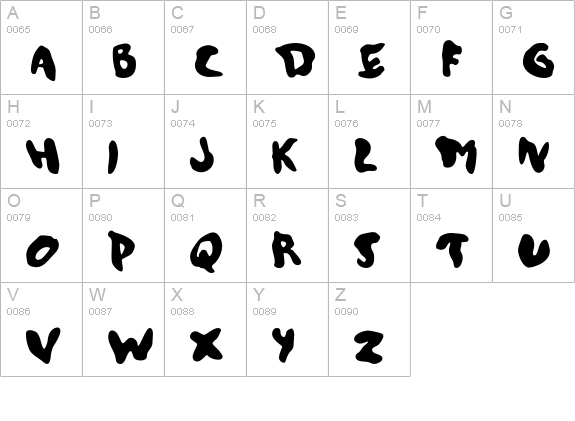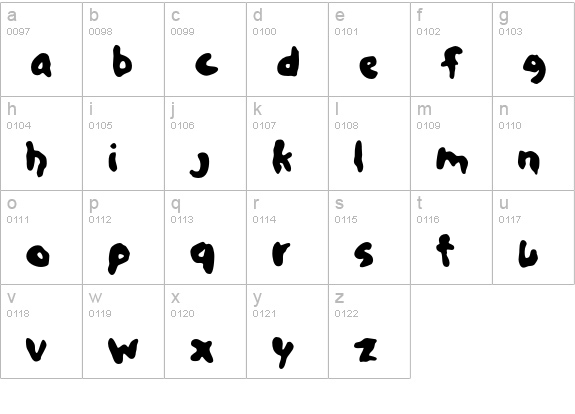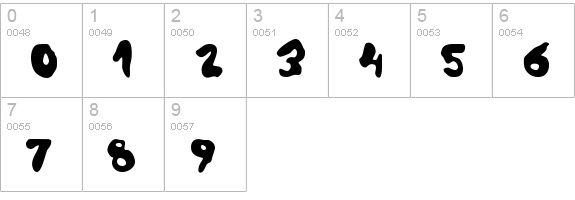
SlackerBookstore Font Details
SlackerBookstore font is the epitome of effortless cool and laid-back vibes. This unique typeface exudes a sense of relaxation and nonchalance, making it perfect for projects that aim to capture a casual and carefree aesthetic. With its slightly irregular letterforms and hand-drawn appearance, SlackerBookstore font adds a touch of authenticity and individuality to any design. But what makes SlackerBookstore font even more appealing is that it is absolutely free. Yes, you read that right! This incredible font is freely available to download at FontsMarket.com. Whether you're a professional designer or someone looking to add a little personality to your personal projects, SlackerBookstore font is the ideal choice. Imagine creating posters, social media graphics, or even T-shirt designs that effortlessly capture the essence of laid-back style. SlackerBookstore font will be your secret weapon, allowing you to effortlessly convey a relaxed and carefree attitude. The versatility of SlackerBookstore font is another reason to love it. Its unique design works well in a variety of contexts, from branding to editorial design. It can be used for headlines, subheadings, or even body text, ensuring that your design remains cohesive and visually appealing. So why wait? Head over to FontsMarket.com and download SlackerBookstore font today, and let your creativity run wild. With its free availability and effortless charm, this font is bound to become your new go-to for all things cool and laid-back.